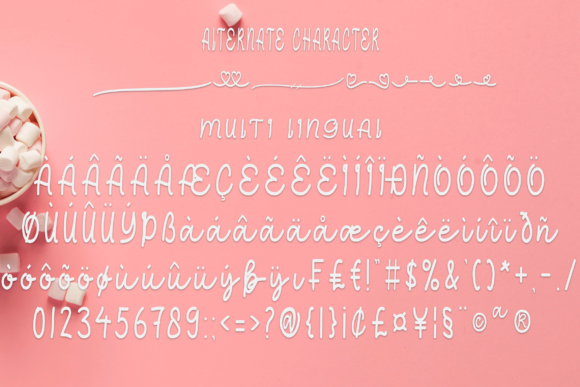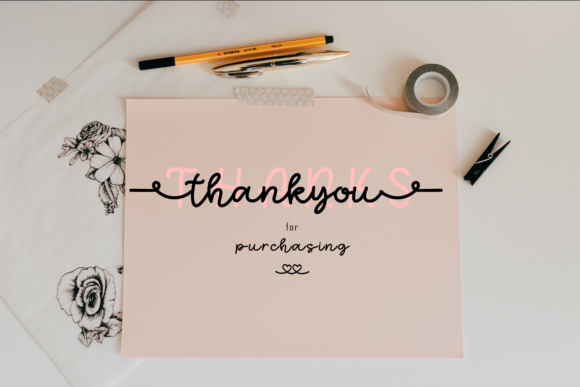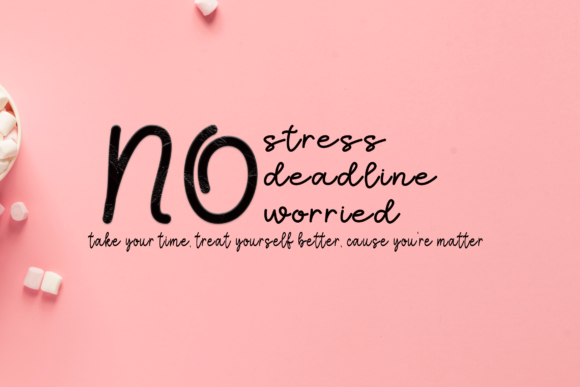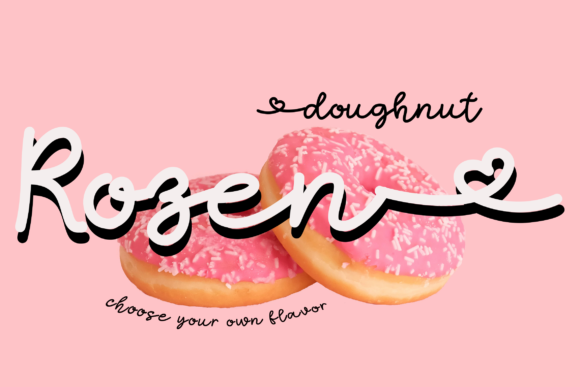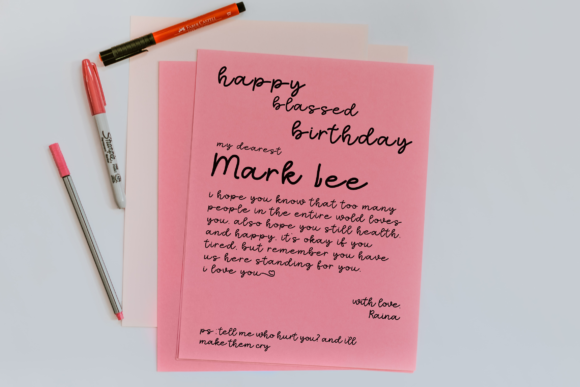
Happy Sunday Font
About Happy Sunday Font
Happy Sunday is a sweet and romantic handwritten font, featuring heart ornaments. Warm, romantic and jolly, this font will turn each of your project ideas into real works of art. Have fun with this beautiful font and explore its endless variations.